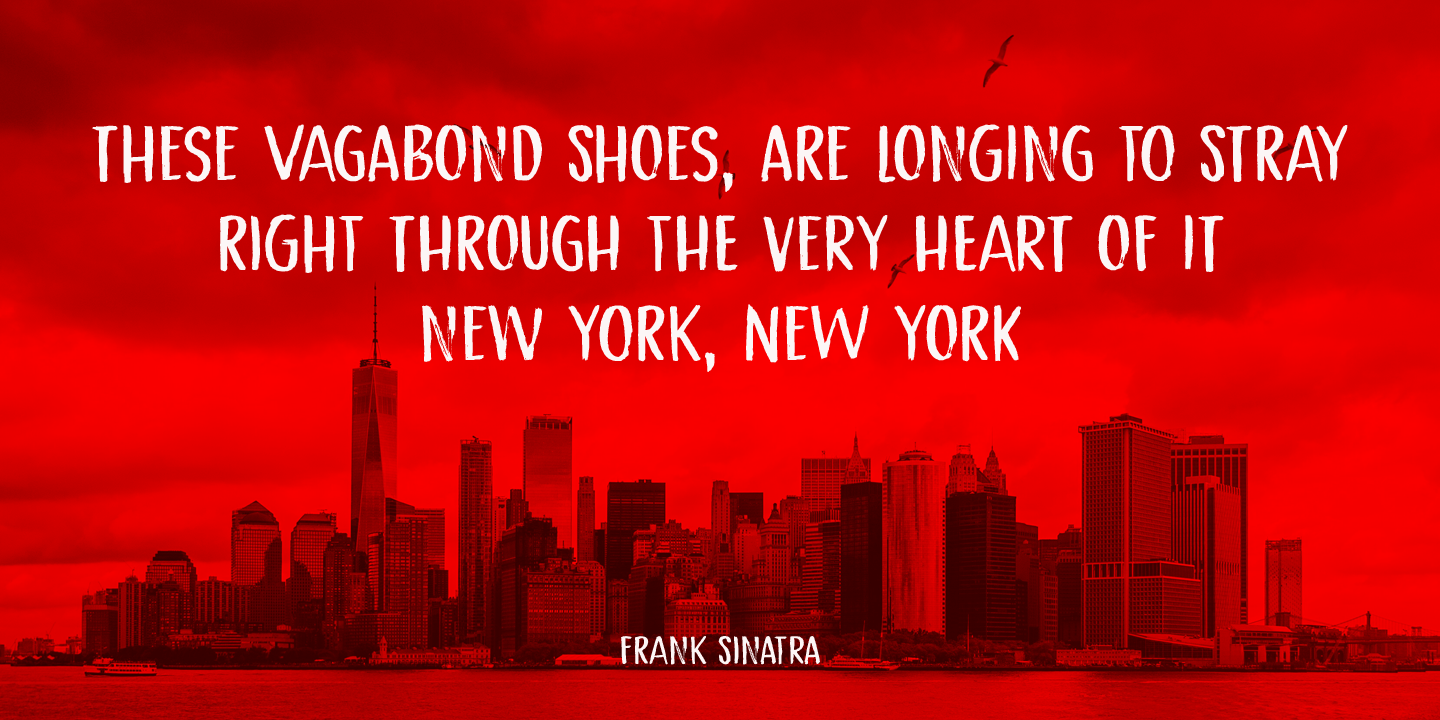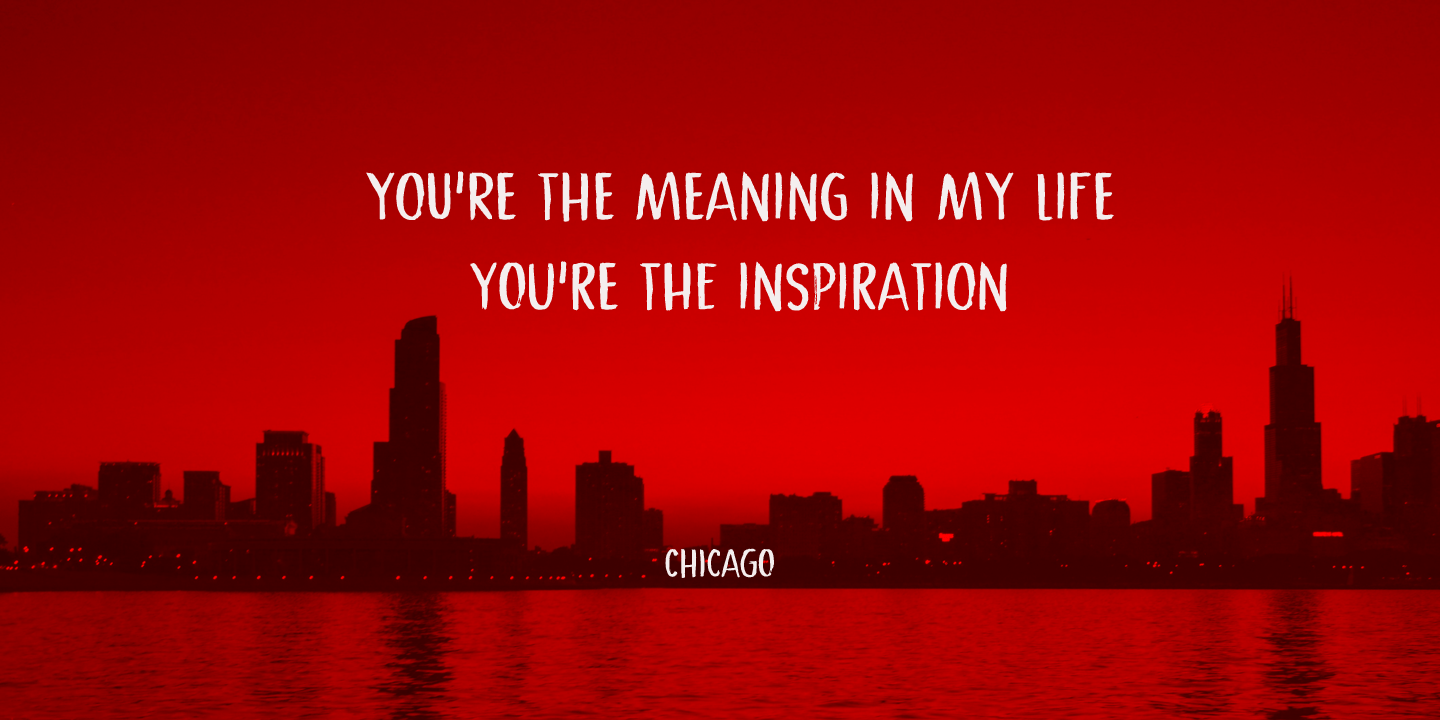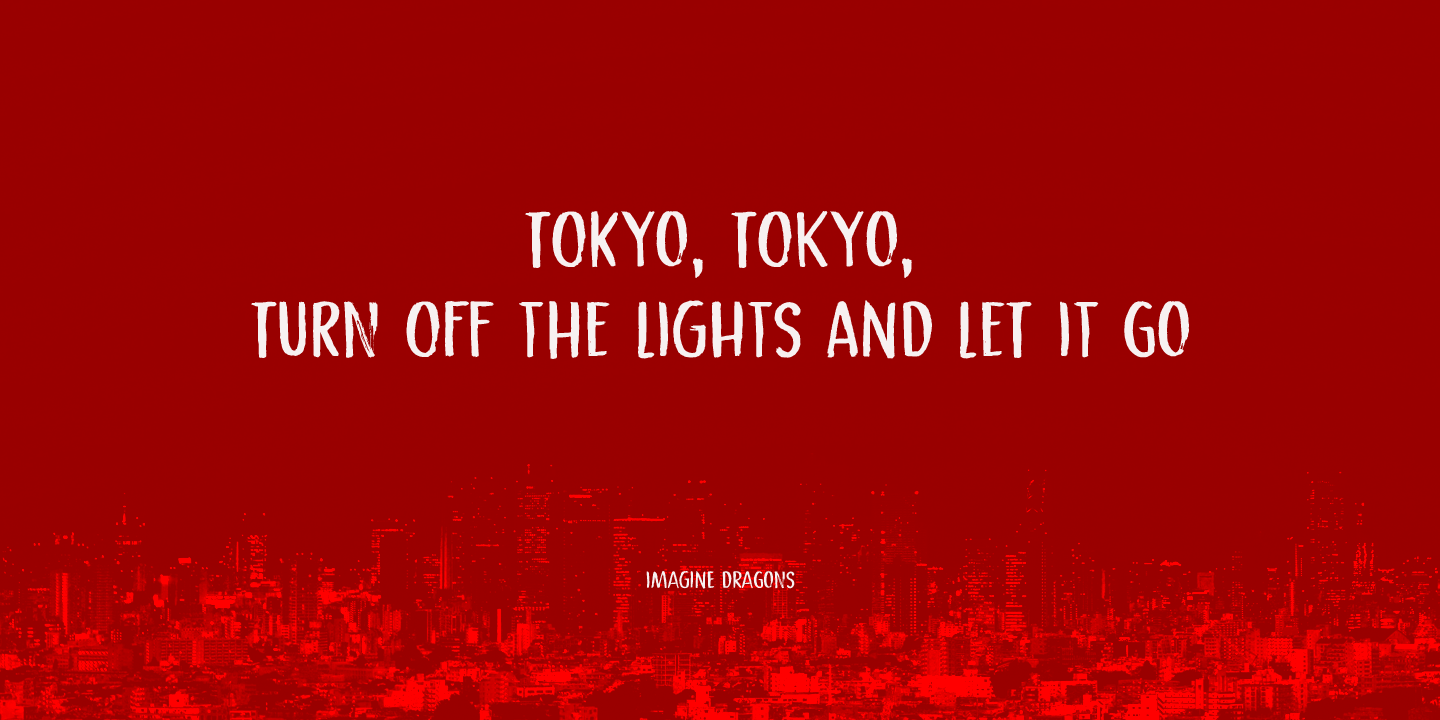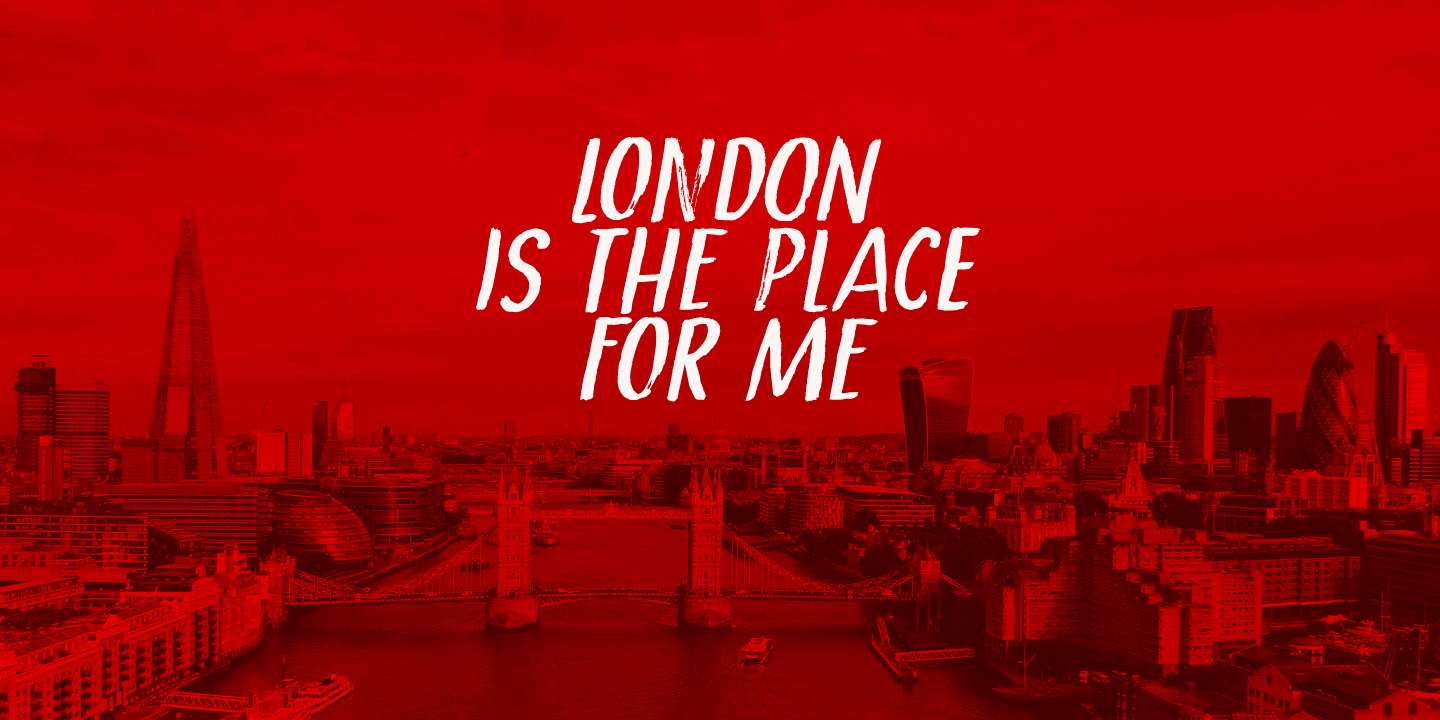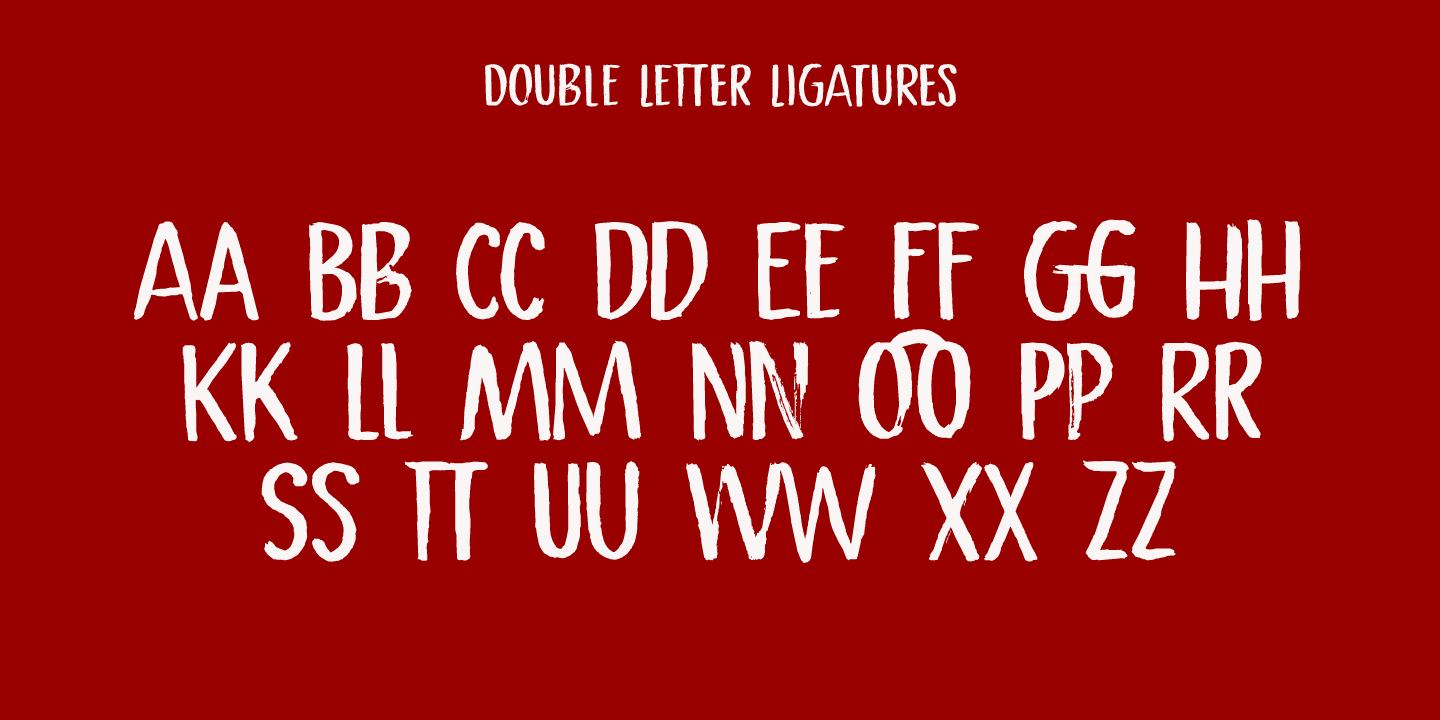
Crimson Skyline is a thin brush font. I used a pencil and Chinese ink to paint the letters. Crimson Skyline comes with double letter ligatures for the lower case letters. And the name? Well, it just has a nice ring to it. That\’s all!